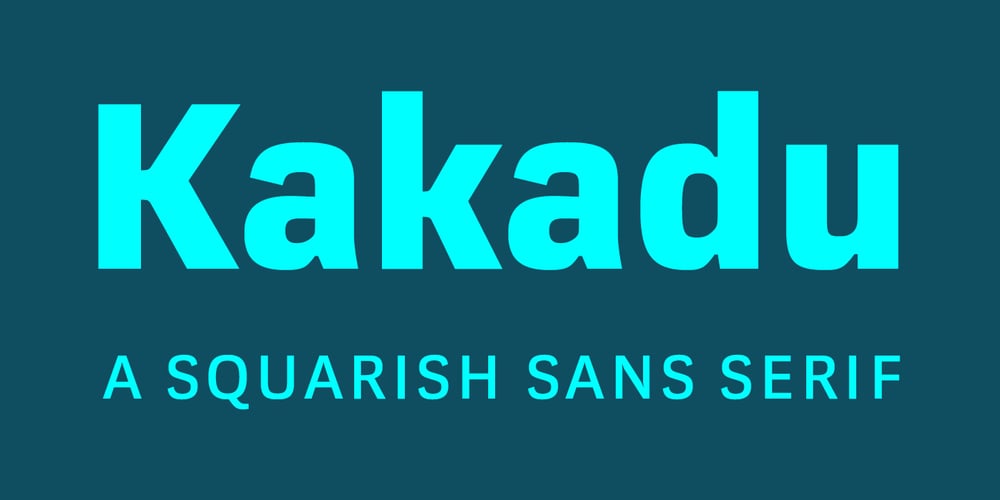
Kakadu Font Family was designed by Ludwig Übele and published by Ludwig Type. Kakadu contains 14 styles and family package options. Kakadu is a squarish sans serif, designed to work equally well on paper and on screen. The angular curves in this typeface create a firm and dependable appearance. The square-like forms also provide an inward openness and allow large and open letterforms, adapting perfectly to the orthogonal pixel grid of the monitor. Kakadu works well in small sizes while, it appears strong and distinguished in larger ones. Play the classic snake game and see the Kakadu fonts in action here.